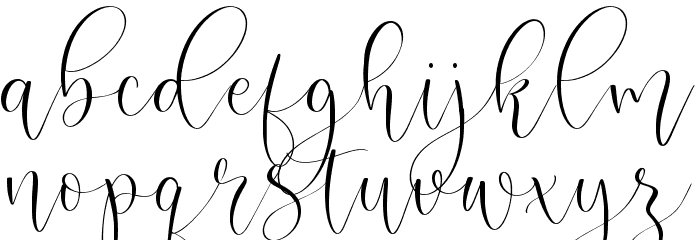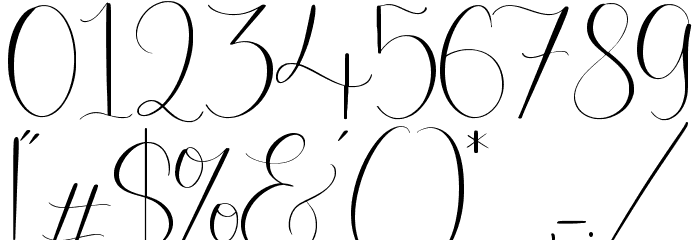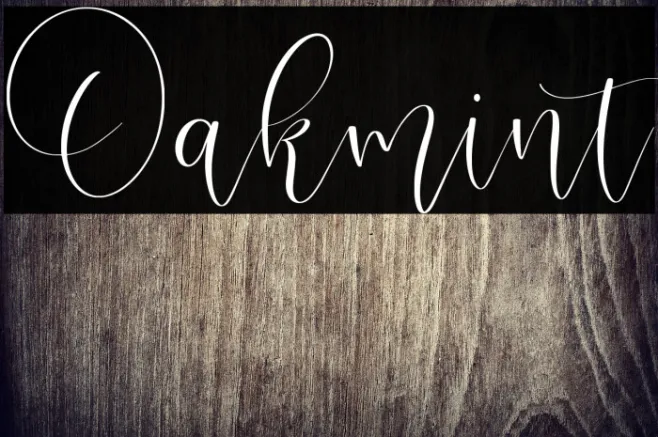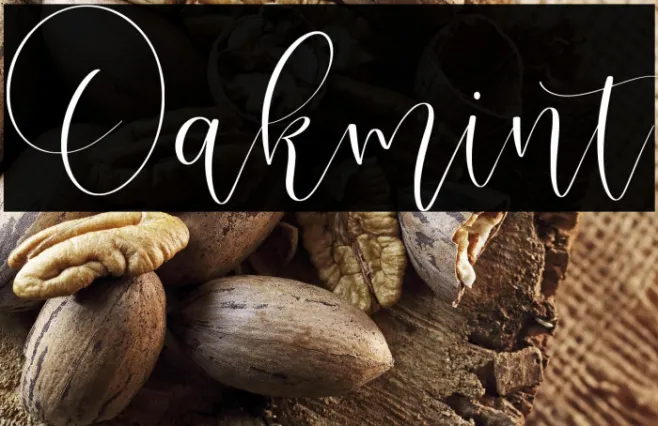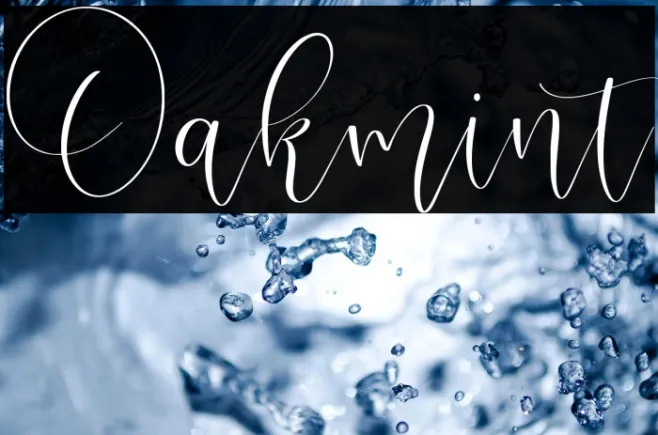
Oakmint Font
This elegant script font features a flowing, cursive style with intricate loops and swashes that give it a sophisticated and graceful appearance. The characters are connected, creating a seamless and fluid look, ideal for conveying elegance and charm. The uppercase letters are particularly ornate, with extended flourishes that add a touch of drama and flair. The lowercase letters maintain the same fluidity, ensuring consistency throughout the text. The numerals and special characters are designed to match the overall aesthetic, making this font versatile for various applications. Its delicate strokes and high contrast between thick and thin lines enhance its decorative appeal, making it suitable for formal and creative projects.
A graceful and elegant script font with flowing, connected characters and intricate swashes.
- Proposed Projects: Ideal for wedding invitations, elegant branding, greeting cards, and high-end product packaging.
- Category: Script
- Character Spacing: Tight
- Overall Style: Elegant
- Use Case: Logos, Invitations, Decorative text